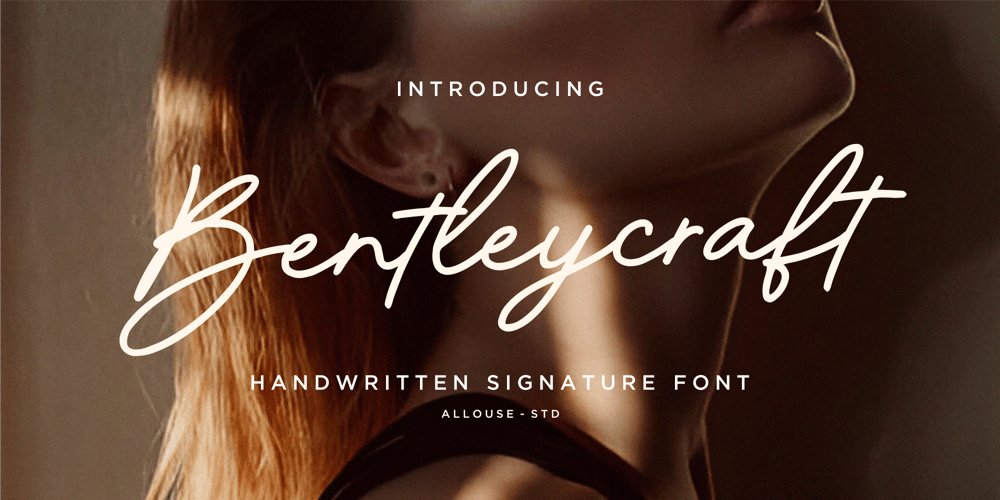
Bentleycraft
Bentleycraft font
Bentleycraft Font Family was designed by Fachrizal Yusuf and published by Allouse Studio. Bentleycraft contains 1 styles and family package options. Proudly Present, Bentleycraft A Handwritten Monoline FontBentleycraft is perfect for any titles, product packaging, branding project, megazine, social media, wedding, or just used to express words above the background.Bentleycraft also come with multilingual support.Enjoy the font, feel free to comment or feedback, send me PM or email.